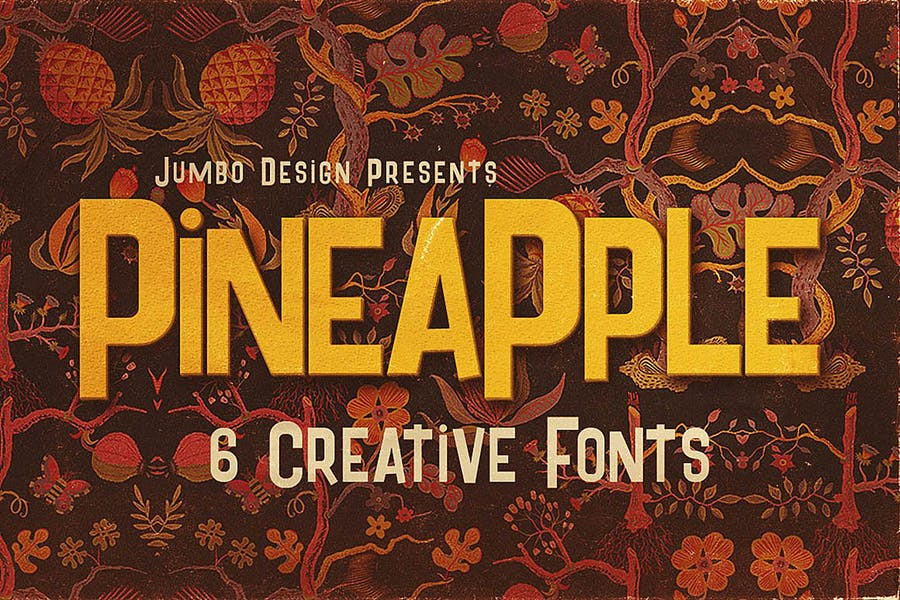
Pineapple - Funny Style Font
Pineapple - Funny Style Font is perfect for tropical vacation resorts, playful fruit juice brands, cheerful summer festivals, fun beach bar signage, joyful children's party materials, quirky restaurant branding, amusing social media graphics, delightful candy packaging, whimsical carnival attractions, and entertaining tropical lifestyle campaigns.
Pineapple - Funny Style Font creates excitement because it embodies the sweet humor and tropical joy of sunny island paradise with its playful letterforms and fruit-inspired character design. The font's bouncy curves and tropical aesthetic instantly convey fun-loving energy and refreshing entertainment, making any brand appear delightfully amusing and authentically tropical. Its carefully crafted fruity details and humorous character create an immediate sense of tropical fun that captivates audiences seeking joyful experiences, entertaining quality, and products that celebrate the transformative power of tropical humor and sunny island spirit.
The Pineapple - Funny Style Font family includes multiple weights and styles: Regular, Bold, Light, Medium, Italic, Condensed, Extended, Tropical, Fruity, and Amusing versions. Each variant maintains the font's signature tropical character while offering different levels of playful styling and entertaining authenticity suitable for various fun and tropical applications.
This delightful typeface brings the authentic spirit of tropical entertainment into contemporary fun design with remarkable humor and island appeal. Pineapple - Funny Style Font Free Download provides entertainment brands and tropical organizations with access to premium fun-inspired typography that embodies the essence of tropical joy and entertaining excellence. The font's playful design and tropical authenticity make it ideal for businesses seeking to establish meaningful connections with fun-loving audiences who appreciate tropical culture, entertaining experiences, and the transformative power of tropical humor that brings sunshine and laughter to everyday life. Whether you're creating branding for tropical resorts, designing materials for entertainment venues, developing communications for fun lifestyle brands, or producing content for tropical celebration events, this font delivers the joyful tropical atmosphere that resonates with audiences seeking genuine fun experiences, tropical quality, and the entertaining spirit that comes from embracing authentic tropical island culture. Its versatile design ensures outstanding performance across both colorful printed materials and dynamic digital tropical platforms while maintaining the character of authentic entertaining typography. The font excels in applications requiring tropical credibility and entertaining appeal. Entertainment professionals appreciate its ability to convey tropical authenticity while remaining highly functional for various fun communications and tropical promotional materials. The comprehensive character set includes tropical symbols and extensive international language support, making it perfect for global tropical brands and international entertainment organizations seeking to communicate authentic tropical joy, entertaining excellence, and island spirit to diverse worldwide audiences who embrace tropical living, appreciate fun experiences, and value the transformative power of genuine tropical entertainment that creates happiness through sunny humor, refreshing joy, and the delightful spirit of tropical island paradise that makes every day feel like a vacation filled with laughter, sunshine, and endless tropical possibilities.